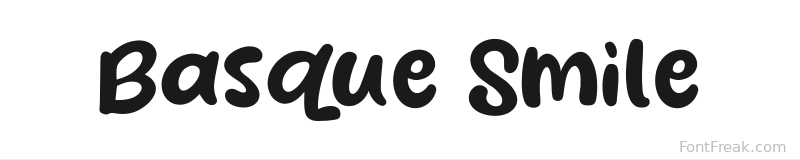
Basque Smile
Basque Smile is a delightful handwritten font designed by Syaf Rizal, categorized as a display typeface. This font exudes a playful charm characterized by its rounded, organic shapes that evoke a sense of warmth and friendliness. Its moderate stroke weight and smooth curves contribute to a casual yet impactful aesthetic, making it a versatile choice for a variety of design projects. The even spacing between characters enhances readability, while the slightly irregular outlines give it an authentic hand-drawn feel.
This font is ideal for a range of creative applications. It is particularly well-suited for wedding invitations, where its whimsical nature can add a personal touch to the special day. Additionally, Basque Smile works wonderfully for children's book covers, as its cheerful design resonates well with young audiences. Restaurant menus can also benefit from this font, providing a fun and inviting look that draws diners in. Furthermore, it can be effectively used for promotional materials targeting family-oriented events or community gatherings, making it a go-to choice for small business owners looking to create a friendly brand image.
The target audience for Basque Smile includes graphic designers, small business owners, and content creators who seek to infuse their projects with personality and joy. By using this font, they can convey a sense of playfulness that appeals to their audience.
What sets Basque Smile apart is its unique ability to blend casual elegance with a vibrant, upbeat character. This font not only captures attention but also leaves a memorable impression, making it a fantastic addition to any designer's toolkit. For those interested, the Basque Smile font free download offers an excellent opportunity to elevate your design projects with this charming typeface.